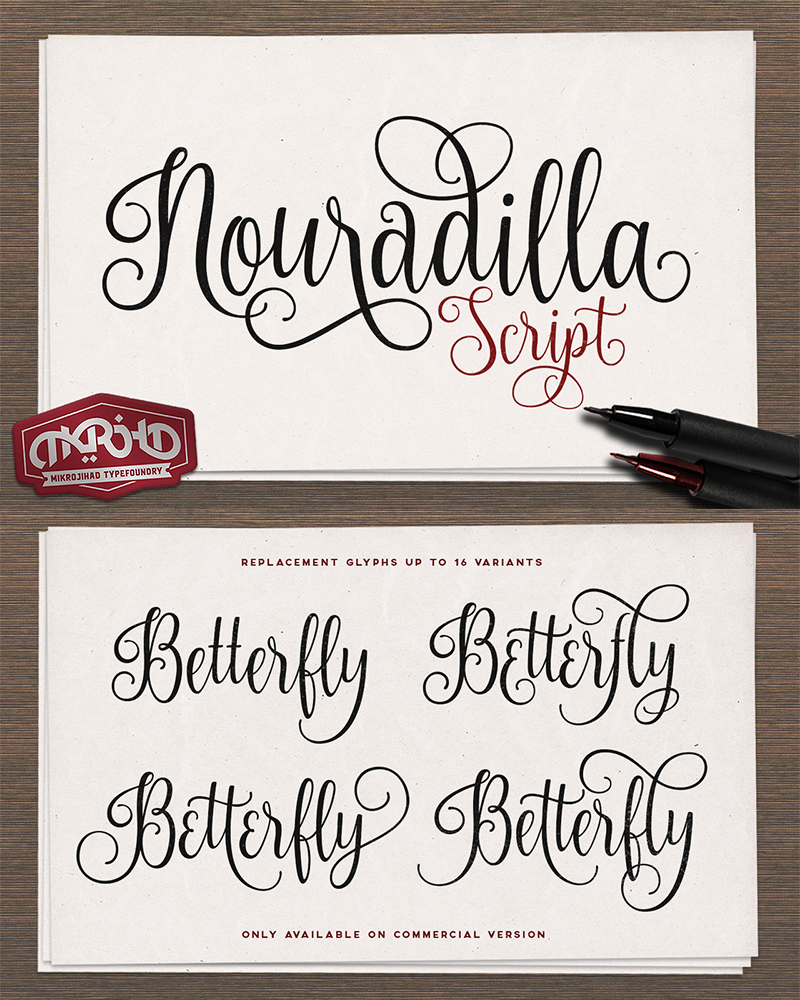
Nouradilla is a captivating calligraphy font that exudes elegance and refinement. Designed by Hendra Pratama, this light-weight script effortlessly blends grace and fluidity, creating a sense of movement and sophistication. The fluid strokes and intricate ligatures showcase the designer's masterful craftsmanship, while the delicate balance between thick and thin lines adds depth and visual interest to the typography.
Nouradilla's versatility makes it a prime choice for a wide range of design applications, from luxurious editorial layouts to enchanting wedding invitations. Its distinctive style and timeless appeal lend themselves beautifully to branding, signage, and high-end packaging, elevating the visual experience with its sophisticated charm.